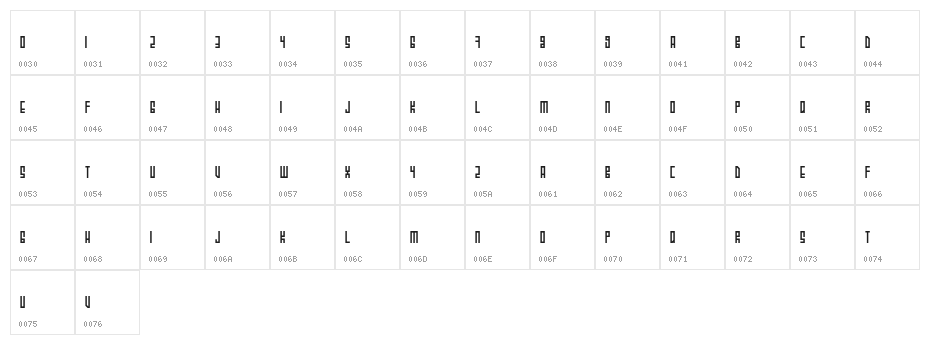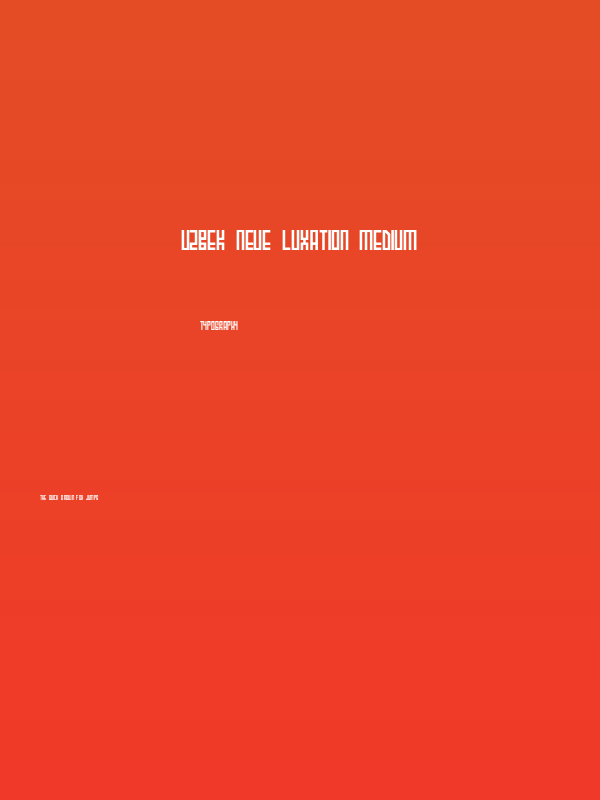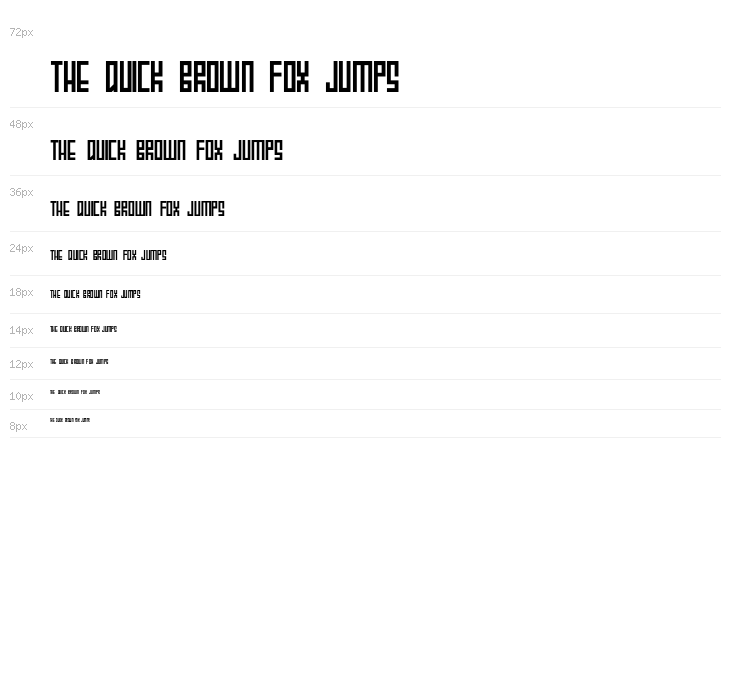
Uzbek Neue Luxation Medium Font
Uzbek Neue Luxation Medium Description
This font features a bold and geometric design, characterized by its block-like structure and uniform stroke width. The characters are constructed with straight lines and sharp angles, giving it a modern and industrial appearance. The uppercase letters are particularly striking, with a consistent height and width that create a cohesive look. The numerals follow the same geometric style, ensuring readability and visual harmony. This font's design is both functional and stylish, making it suitable for various applications where a strong visual impact is desired.
| Proposed Projects | Ideal for branding, posters, headlines, and any project requiring a strong, modern aesthetic. |